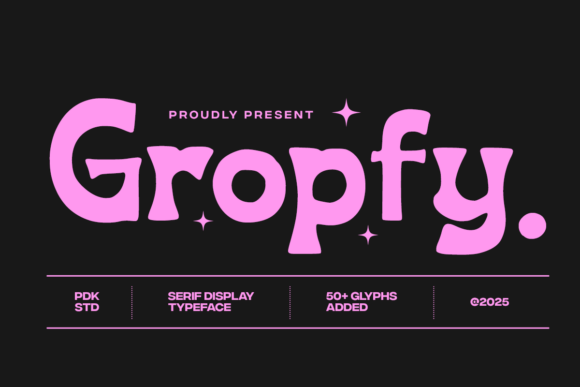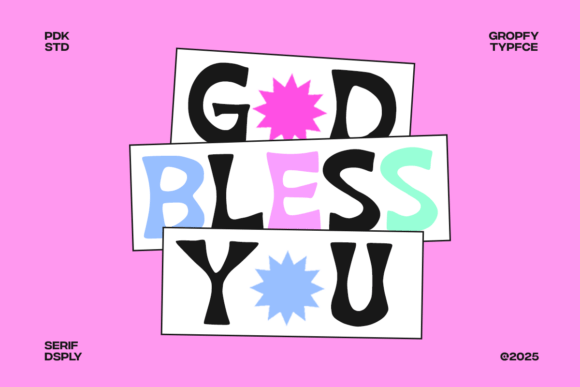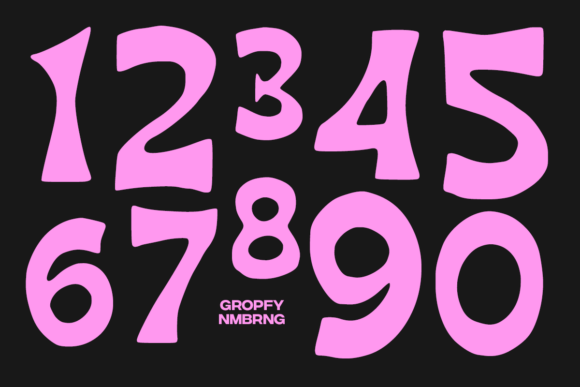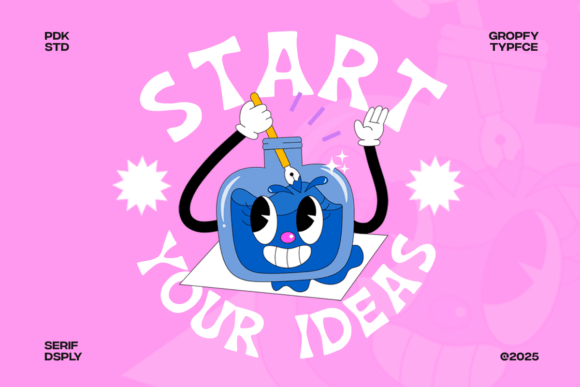
Gropfy Font: Quirky Serif Display Font for Bold & Playful Branding
About the Gropfy Font
Crafted with precision, the Gropfy Font is ready to bring your ideas to life. Gropfy is a quirky and playful serif display font packed with personality. Designed to stand out, it combines expressive curves with a hand-drawn vibe, perfect for branding, posters, packaging, and creative editorial layouts. Gropfy includes uppercase, lowercase, numbers, symbols, and over 50 stylistic glyphs to supercharge any bold design concept.
Gropfy’s bold, playful energy makes it ideal for headlines, short impactful statements, and branding projects requiring a distinctive, friendly touch. It excels in posters, packaging design, and short-form editorial layouts where its quirky charm can shine. However, its highly expressive nature makes it unsuitable for body text or UI elements; the visual weight and irregular letterforms would hinder readability in extended passages.
To complement Gropfy’s hand-drawn feel, consider pairing it with a clean sans-serif like Montserrat for a balanced contrast, or a more geometric sans-serif like Futura for a modern, sophisticated edge. A script font like Great Vibes could add a touch of elegance, enhancing the playful yet slightly whimsical feeling of Gropfy.
Ultimately, Gropfy is best suited for brands and projects that value a unique, approachable personality—think artisan crafts, children’s products, or playful lifestyle brands. Its inherent quirkiness and bold aesthetic will always be the main focus, ensuring visual memorability.
Gropfy Font Usage Examples
Gropfy Font Example